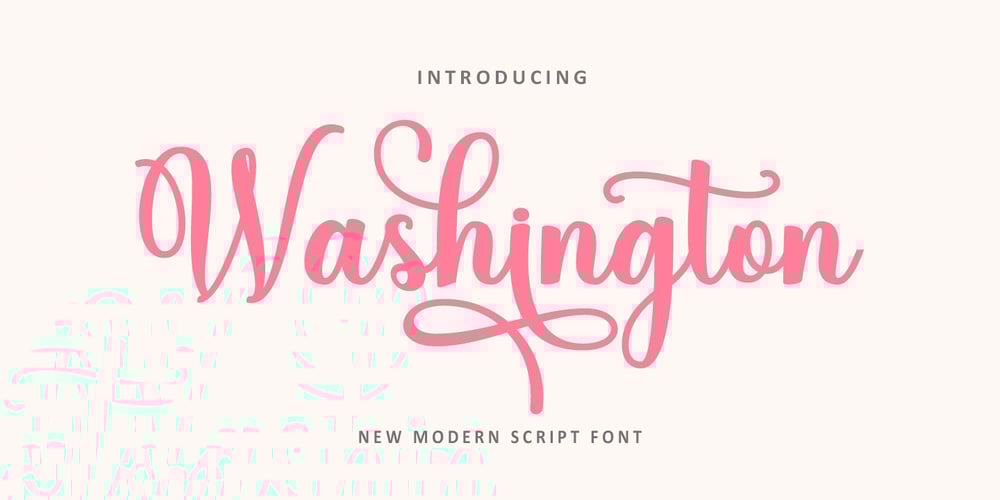
Washington Script Font Family was designed by Nurul Kamal and published by Nk Studio. Washington Script contains 1 styles and family package options. Washington is a beautiful script font with many alternative styles, natural looking, elegant and perfect for any extraordinary project.Washington is suitable for various products such as invitations, product packaging, product design, crafts, labels, photography, watermarks, logos & branding.Everything can be accessed using software that supports Opentype, such as Adobe Indesign, Adobe CS Illustrator, Adobe Photoshop CC, and Corel Draw.Please send a message if you have any questions, and say hello.Thank You 🙂